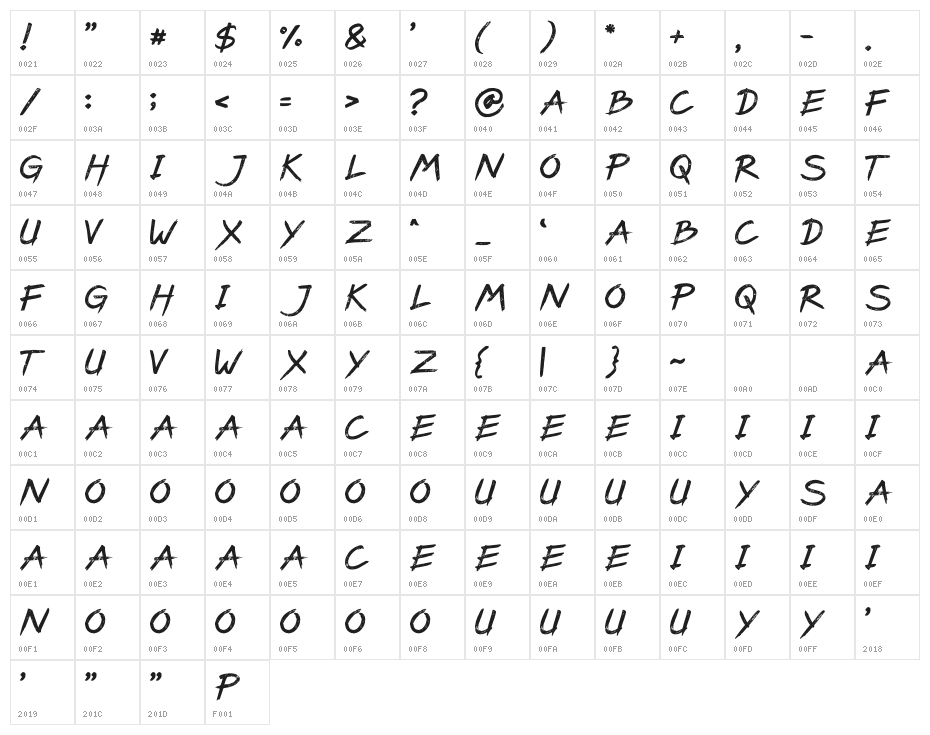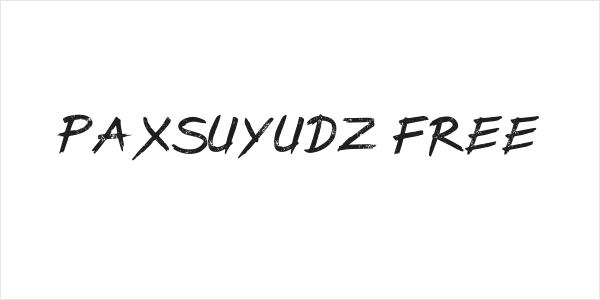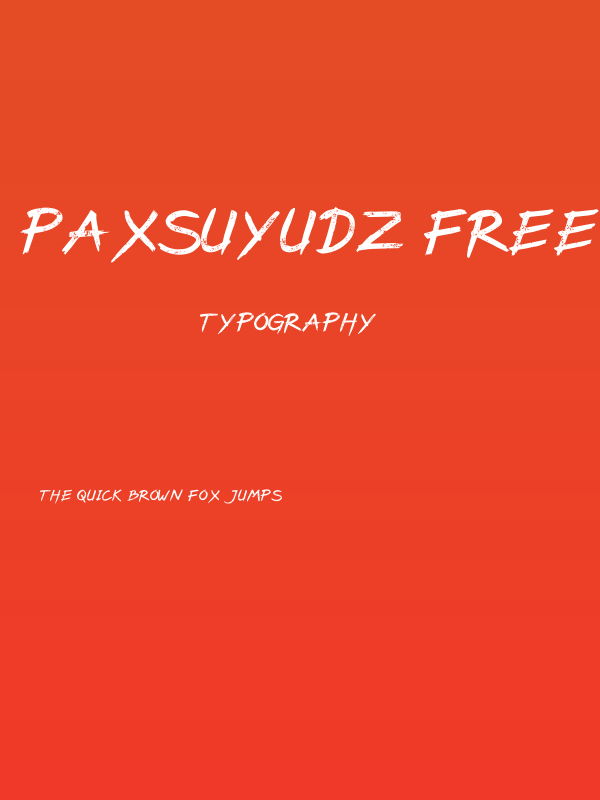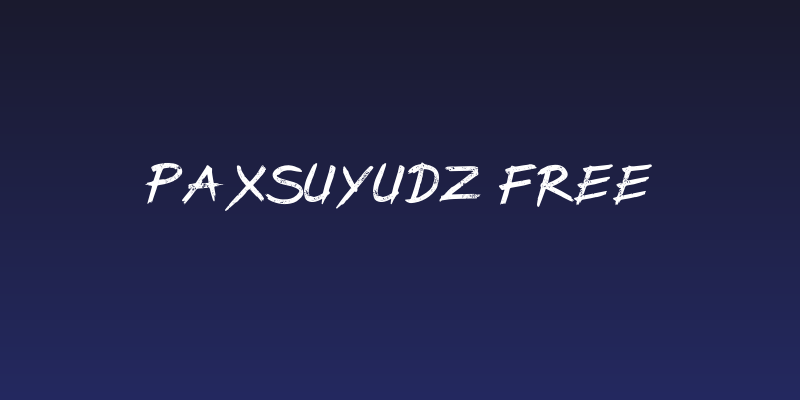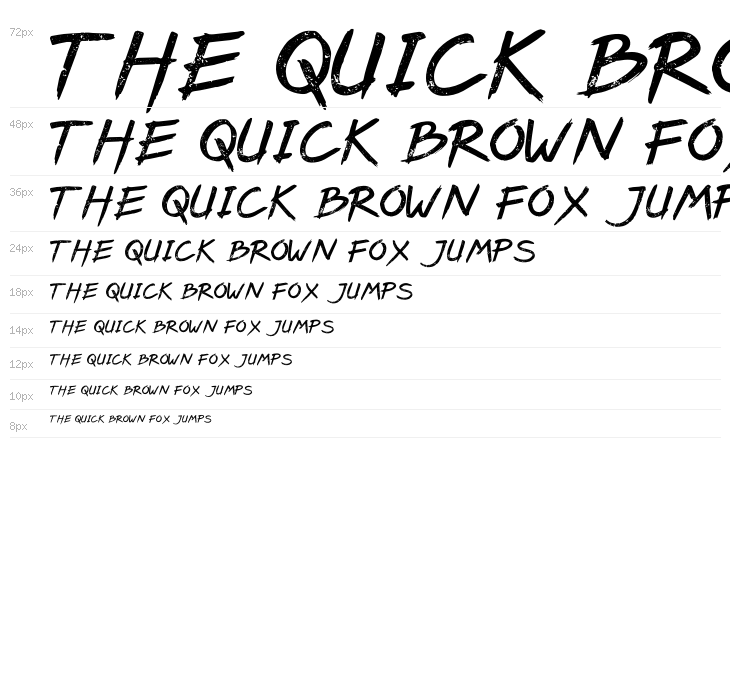
PaxSuyudz Free Font
PaxSuyudz Free Description
This font features a bold, energetic style with a distressed, grunge-like texture. The uppercase and lowercase letters exhibit a dynamic, hand-drawn appearance, characterized by irregular edges and a slightly slanted orientation. The numerals and special characters maintain this rugged aesthetic, adding a sense of movement and spontaneity. The overall design suggests a raw, artistic flair, making it suitable for projects that require a bold statement. The texture adds depth and interest, enhancing its visual impact.
| Proposed Projects | Ideal for posters, album covers, streetwear branding, and any creative project needing a bold, edgy look. |